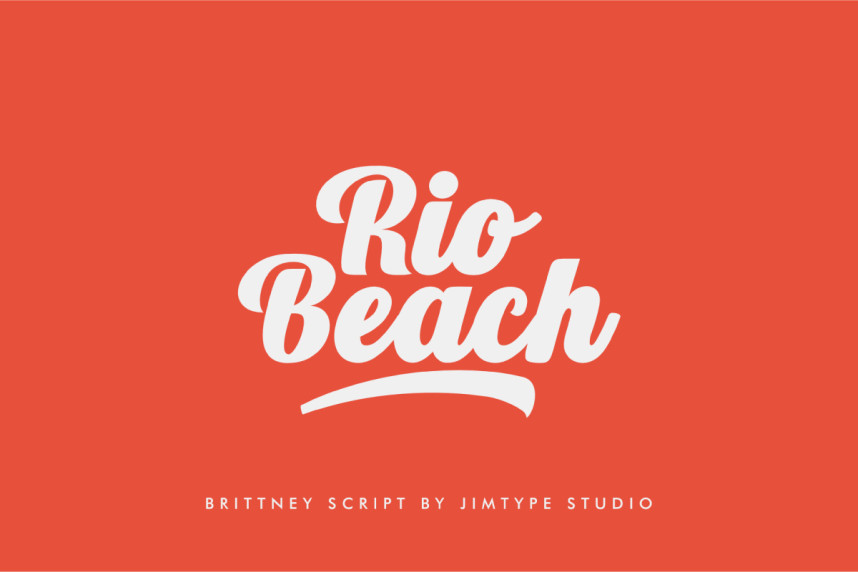
Brittney – Bold Script Font
Brittney – Bold Script Font is a bold and juicy script font from Jimtype Studio, designed to bring personality and charm to your visuals. With clean, standard glyphs and a versatile handwritten flow, it’s perfect for logos, branding, websites, social media, posters, and eye-catching design projects.